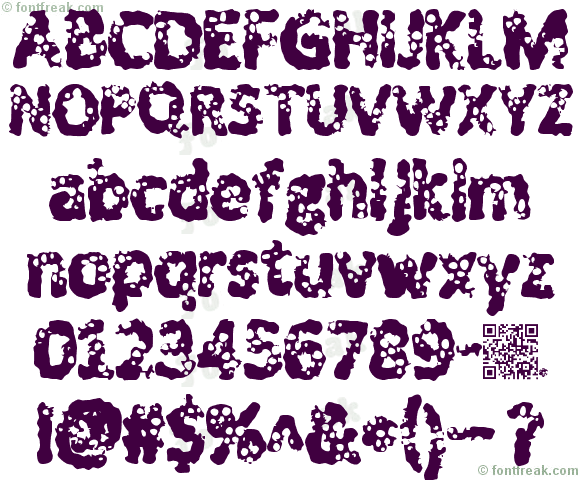
ShotGuns
About ShotGuns
ShotGuns by XEROGRAPHER FONTS is a unique display typeface that captures attention with its playful and distinctive character. This font exhibits a bold, irregular design that resembles the blast of a shotgun, making it perfect for projects that require a strong visual impact. The strokes have a varied weight, contributing to the font's energetic feel, while the overall spacing is tight, enhancing its dramatic effect. The decorative elements within the letterforms add an organic, almost cartoonish quality, making it an engaging choice for creative projects.
This font is particularly well-suited for a variety of use cases. It can be an excellent choice for movie posters, especially in genres that lean towards action or adventure, where a bold statement is essential. Additionally, ShotGuns is ideal for graphic novels or comic book covers, appealing to audiences looking for something unconventional and fun. It also finds its place in promotional materials for events like music festivals or sporting events, where high energy and excitement are key. Small business owners looking to stand out in their branding will appreciate its unique charm for signage or marketing materials.
What sets ShotGuns apart is its ability to infuse personality into any design. Its quirky look not only draws the eye but also evokes a sense of fun and creativity, making it a valuable addition to any typographic toolkit. Whether you're creating eye-catching promotional materials or simply looking to add flair to your designs, this font truly stands out.